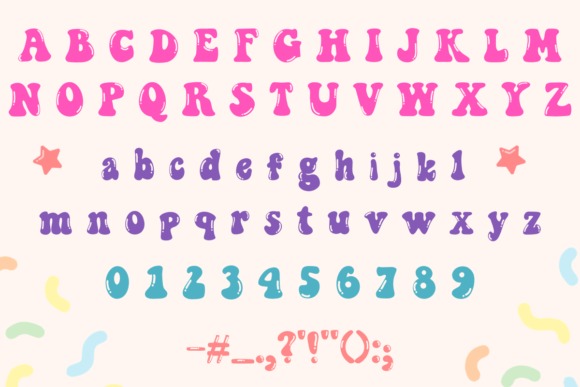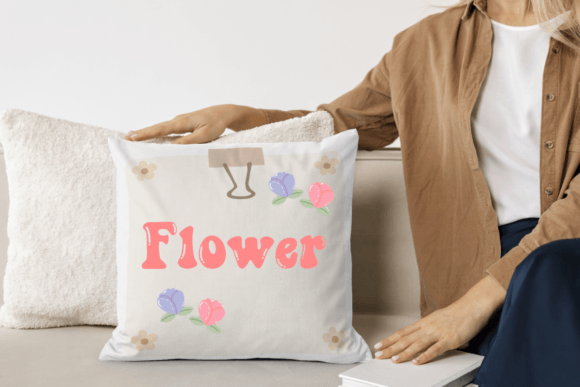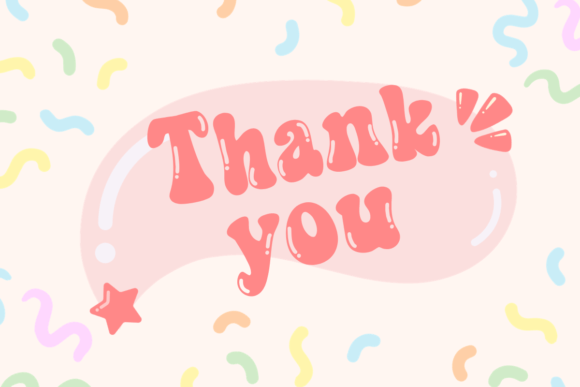
Discover the Sweetness of Jelly Font
Who hasn’t experienced that magical moment when inspiration strikes, and you just can’t wait to bring your creative idea to life? For designers, it’s a moment that can make all the hard work worth it – the moment when you finally find the perfect font to match your vision. And if you’re anything like us, you’re always on the lookout for something that adds a touch of personality to your designs.
Enter the Jelly Font, a delightful combination of cute handwritten fonts that’s sure to make your designs stand out. This versatile font is perfect for creating a wide range of designs, from banners and mugs to cards and social media posts. Whether you’re working on a personal project or a client’s campaign, the Jelly Font is a valuable addition to your design toolkit.
Jelly Font Key Features
- Size: The font family includes 4 styles: Light, Regular, Medium, and Bold, providing versatility for various design needs.
- Unique Characteristics: The font features a unique, hand-drawn style with a playful, jelly-like texture, adding a touch of whimsy to any design.
Jelly Font Review
I recently had the chance to work with the Jelly Font, and I must say, it was an interesting experience. Here are my thoughts on what works well and what doesn’t.
- Unique Character**: Jelly Font stands out with its quirky, playful design that’s perfect for projects requiring a fun and whimsical touch.
- Good Legibility**: Despite its irregular shape, the font is relatively easy to read, making it suitable for body text or short headings.
- Customization Options**: Jelly Font offers a range of font weights and styles, allowing designers to mix and match to suit their needs.
- Difficulty with Long Texts**: Due to its irregular shape, Jelly Font can be challenging to read in long blocks of text.
- Not Ideal for Formal Content**: The font’s playful nature makes it less suitable for formal or professional content, such as academic papers or corporate reports.
Jelly Font is a great addition to any designer’s toolkit, but it’s essential to use it judiciously. Its unique character and customization options make it perfect for projects requiring a fun and whimsical touch. However, its limitations should not be ignored, and designers should carefully consider the context in which they use the font.
Tips for Getting the Most Out of Jelly Font
To maximize the effect of Jelly Font, use it in bold, bright, and playful designs. This font is perfect for:
- Children’s books and educational materials
- Summer and outdoor-themed designs